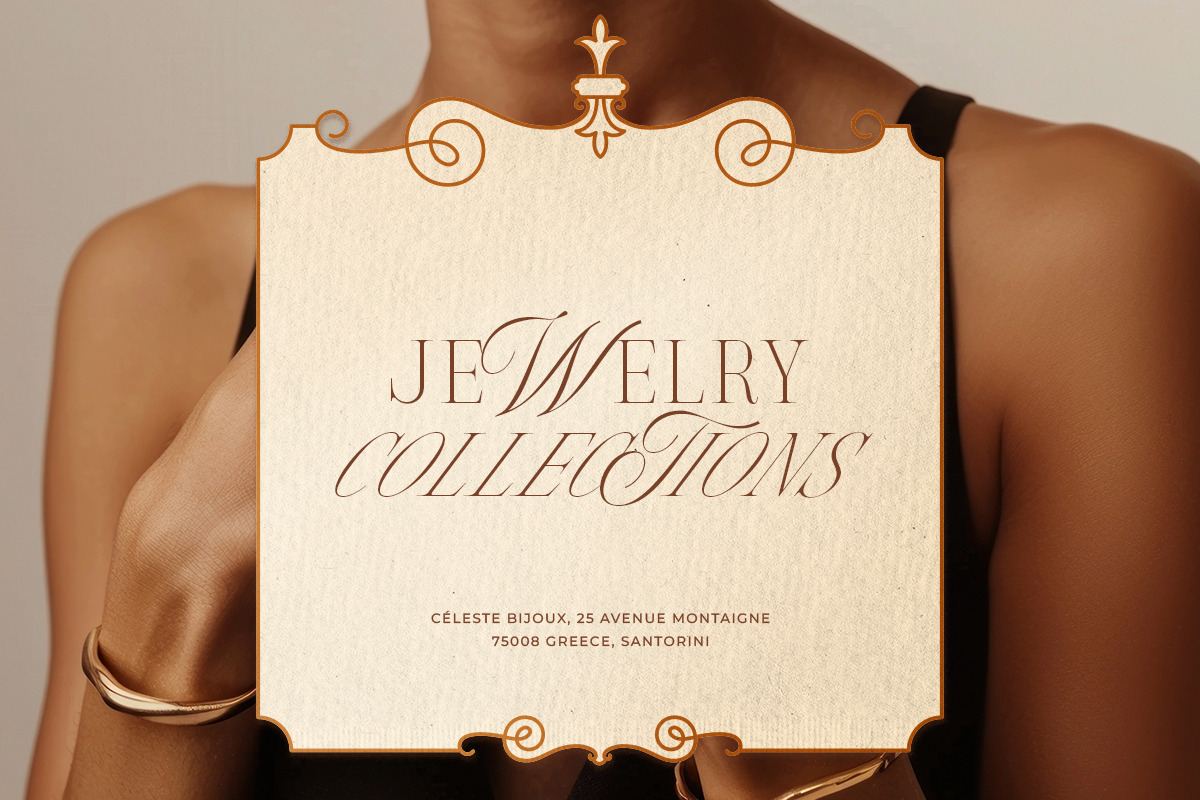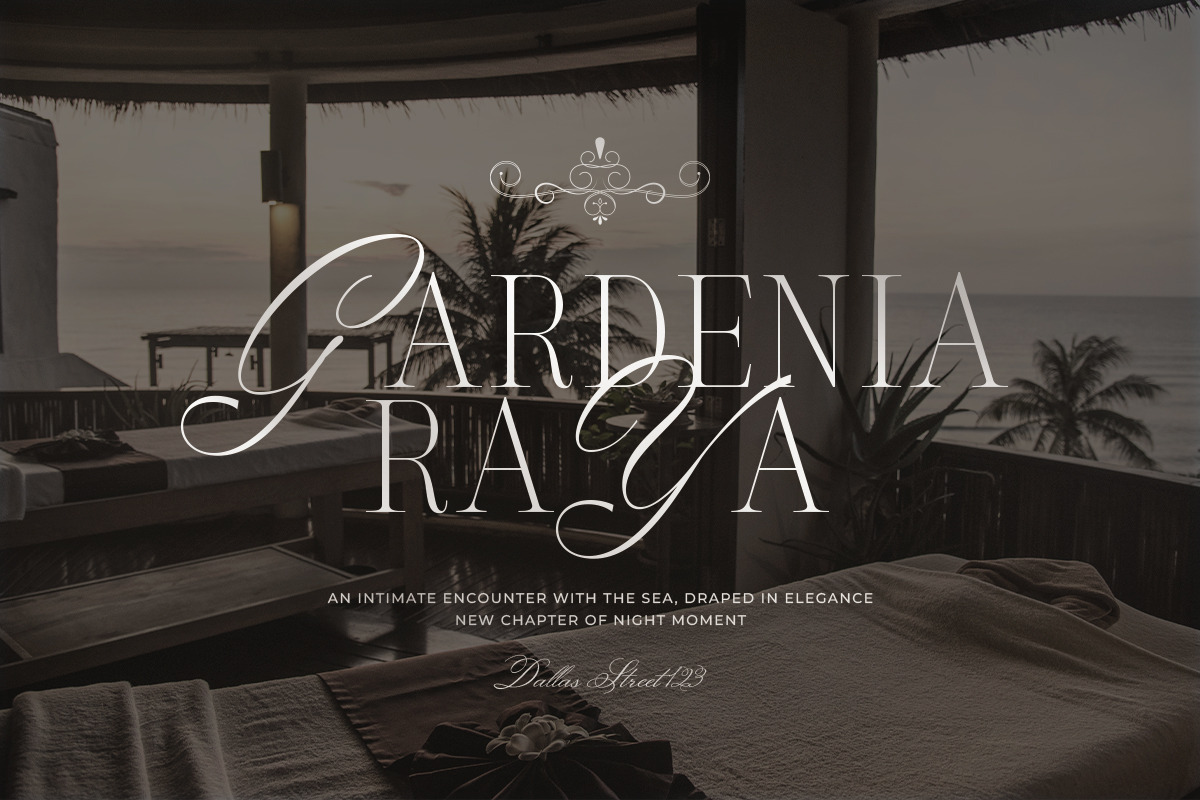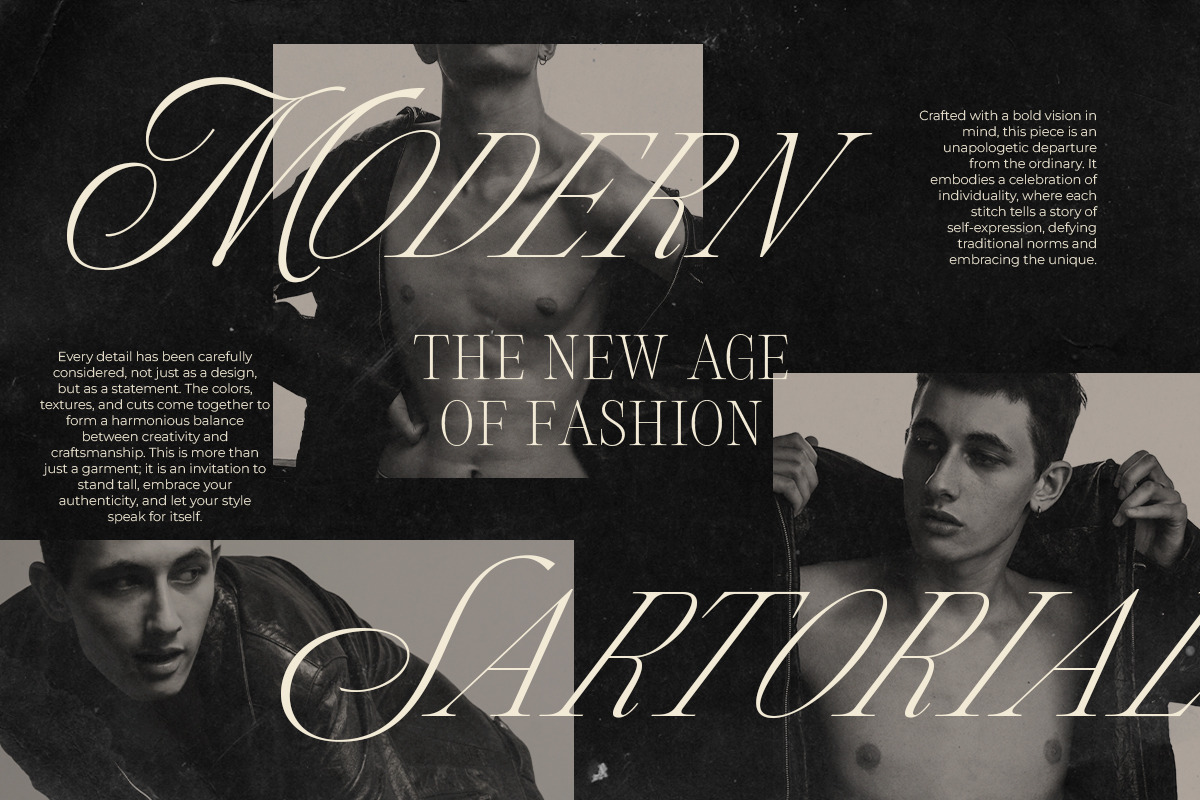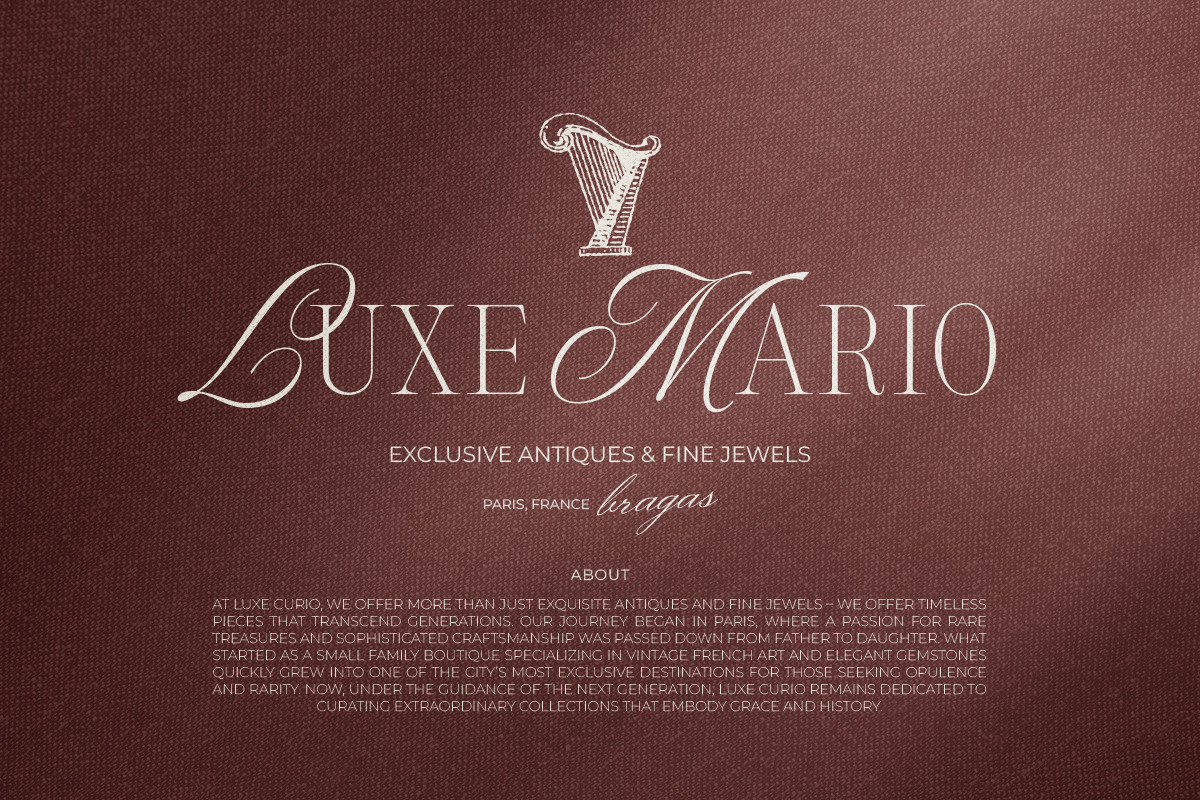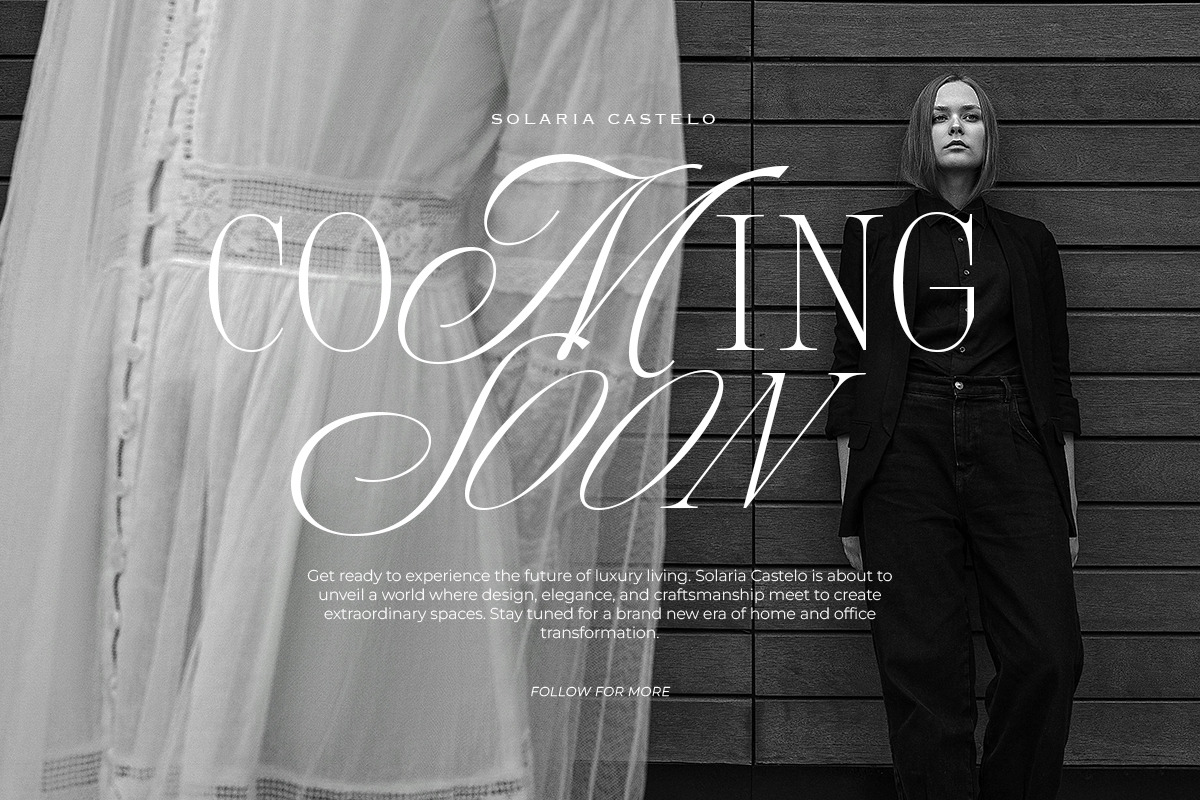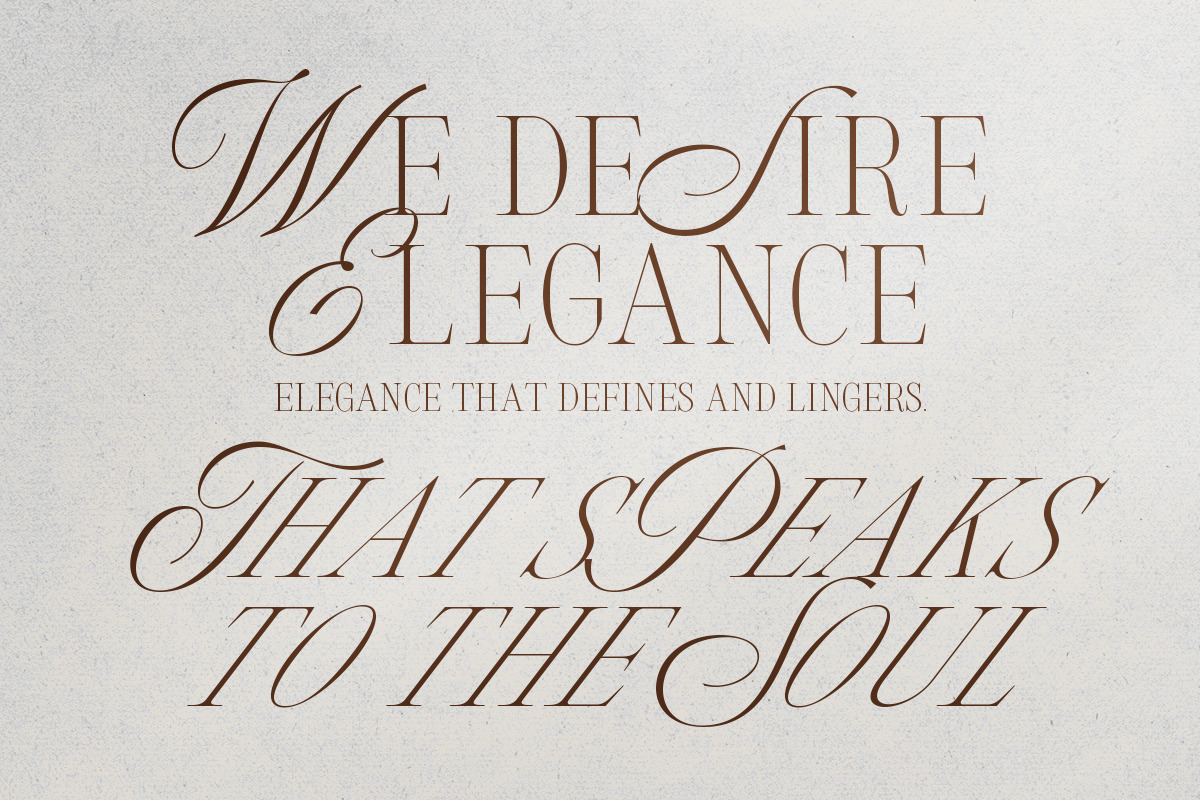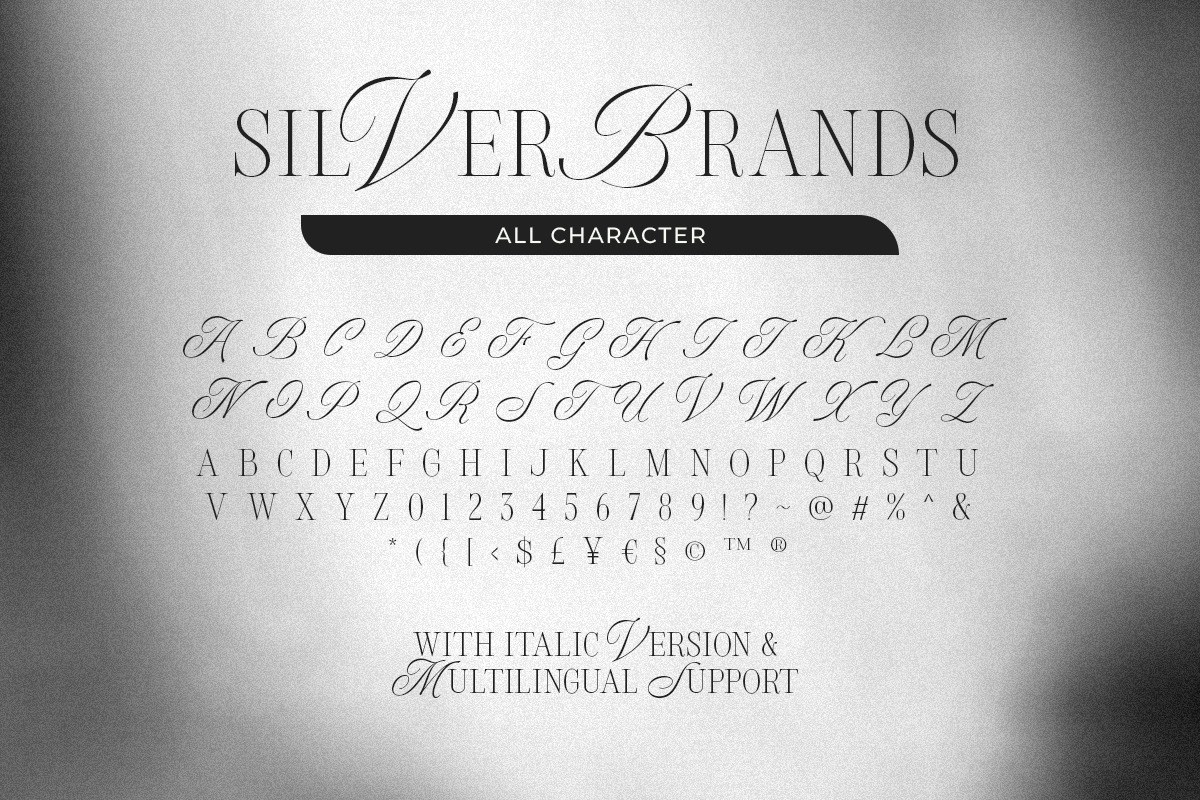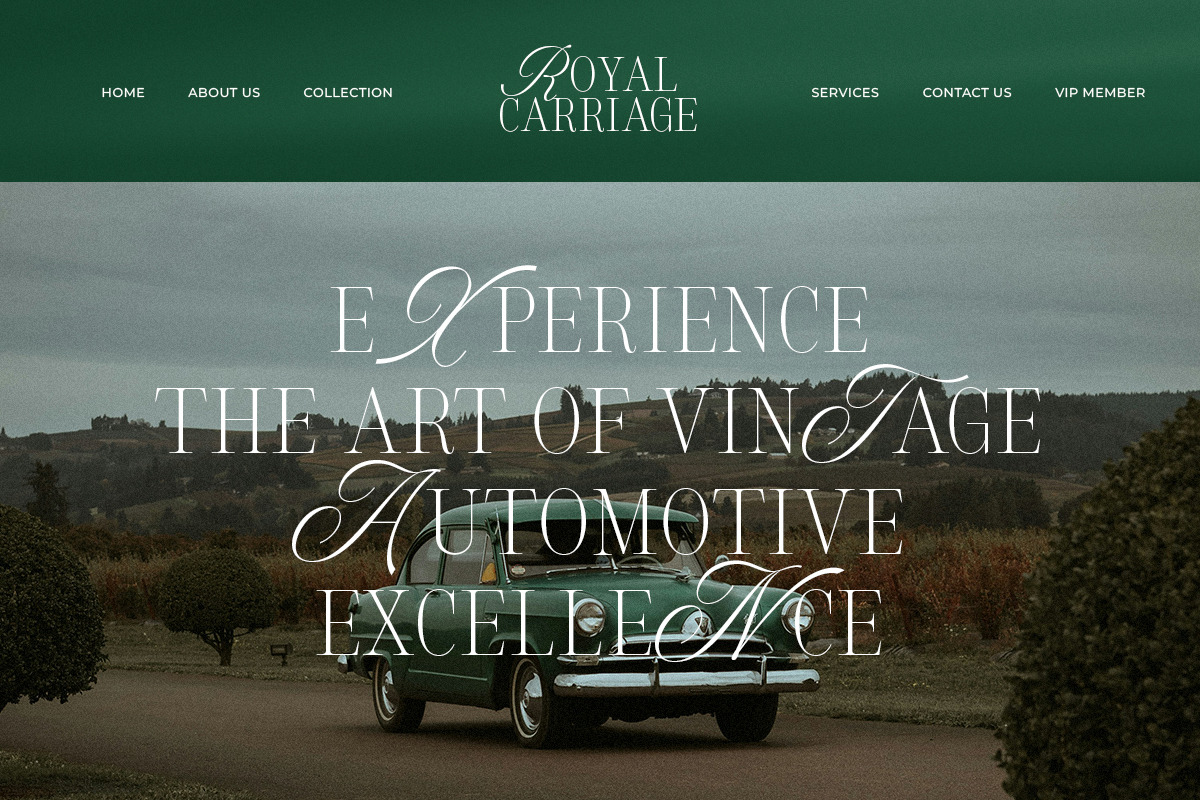
Silver Brands - Elegant Mixed Serif
Silver Brands is a mixed serif with elegant script for uppercase and timeless serif for the lowercase. With Italic version, you can use this font for any purposes such as logo, branding, quotes, etc. You can combine the uppercase and lowercase to make your designs more stunning. This font also support multi language!